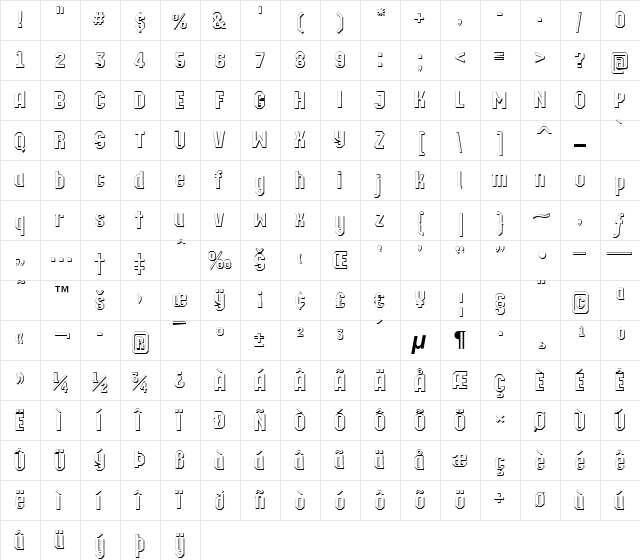
a_Technocrat3Dxtr Regular
| Designer | W.Chufarofsky & M.Slutsker |
Design Context for a_Technocrat3Dxtr Typeface
a_Technocrat3Dxtr has a distinctly futuristic character, with geometric precision and clean angles that feel at home in technology, gaming, and sci-fi contexts.